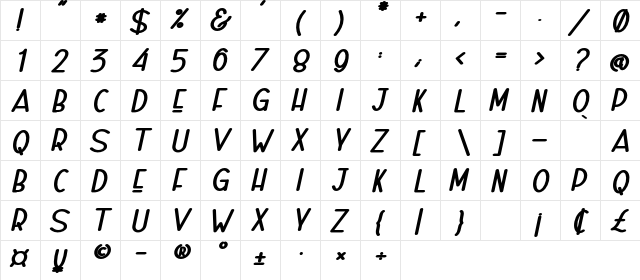
Naura Bold Slant_DEMO
| Designer | Omotu Studio 2020 |
Design Context for Naura Typeface
Naura takes a measured approach to typography — its balanced proportions and neutral character make it a reliable workhorse for both digital and print work. Its bold stroke weight gives it real presence on the page.